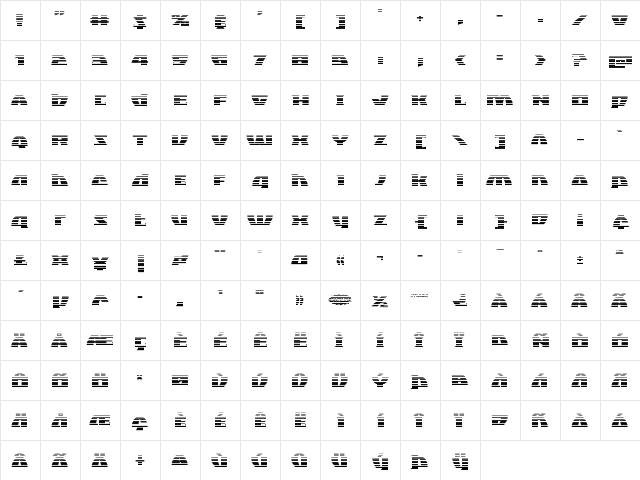
Black Bishop Gradient Regular
Design Context for Black Bishop Gradient Typeface
Black Bishop Gradient is a composed and adaptable typeface that performs quietly and consistently across a wide range of design contexts.